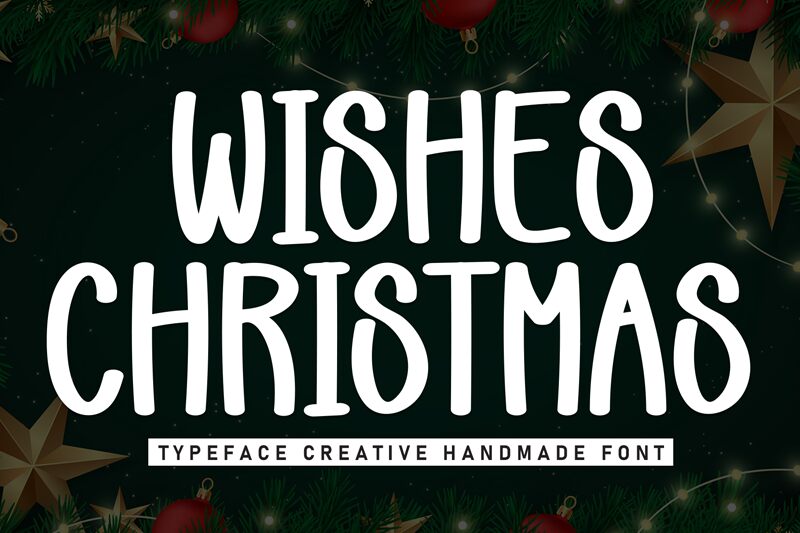
Wishes Christmas
Wishes Christmas font by Scratchones is a condensed handwritten font offering a whimsical and handcrafted feel. Each letter exudes charm, boasting a vintage vibe and casual aesthetic. Its design carries a unique festive tone that reflects the excitement of December holidays — especially Christmas.
Use Wishes Christmas in seasonal branding, festive packaging, personal comics, clothing or linen print designs for adults or children, posters, headers for blog posts with an interior focus. As it’s free, this font is also great to decorate your holiday gifts cards online or offline.